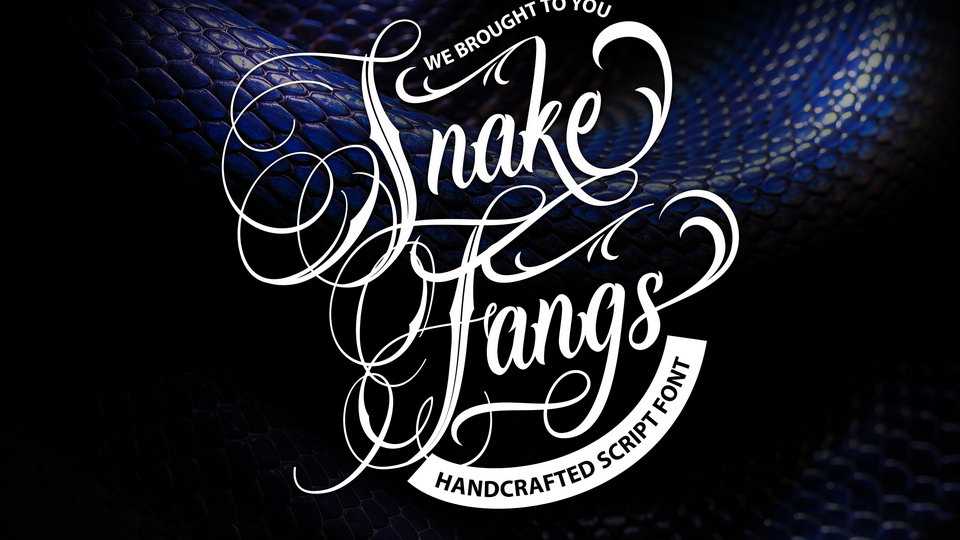
Download SnakeFangs font, a fascinating script with beautiful decorative swashes. With its unique style SnakeFangs is perfect for various projects from elegant wedding graphics to classy tattoo design.
Designer: Vunira Design